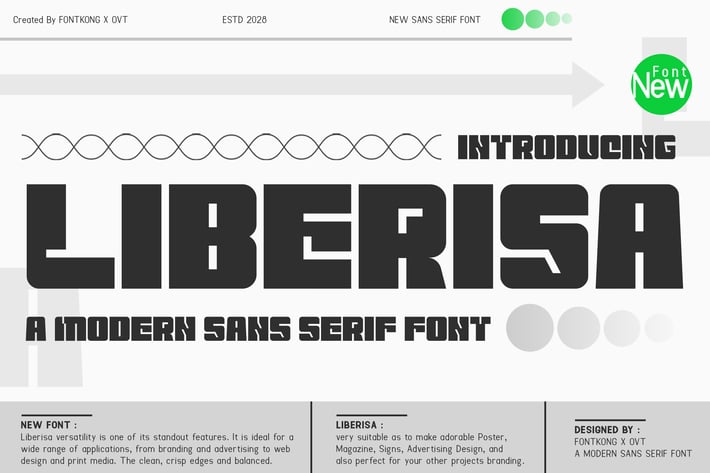
Liberisa - Modern Sans Serif Font
Introducing "Liberisa," a modern sans serif font that exemplifies simplicity and elegance. Crafted for the contemporary designer, "Liberisa" seamlessly blends minimalism with sophistication, making it a versatile addition to any project.
"Liberisa" features a full set of uppercase and lowercase letters, numerals, punctuation, and special characters. Its design is characterized by clean, straight lines, and well-balanced proportions, making it ideal for various applications, including branding, logos, editorial design, and web design.
Perfect for creating sleek and professional designs, "Liberisa" ensures that your text remains clear and impactful. Whether you're designing for print or digital media, this typeface provides the modern aesthetic and functionality required to enhance your work.
"Liberisa" is your go-to font for achieving a contemporary, polished look in any project.